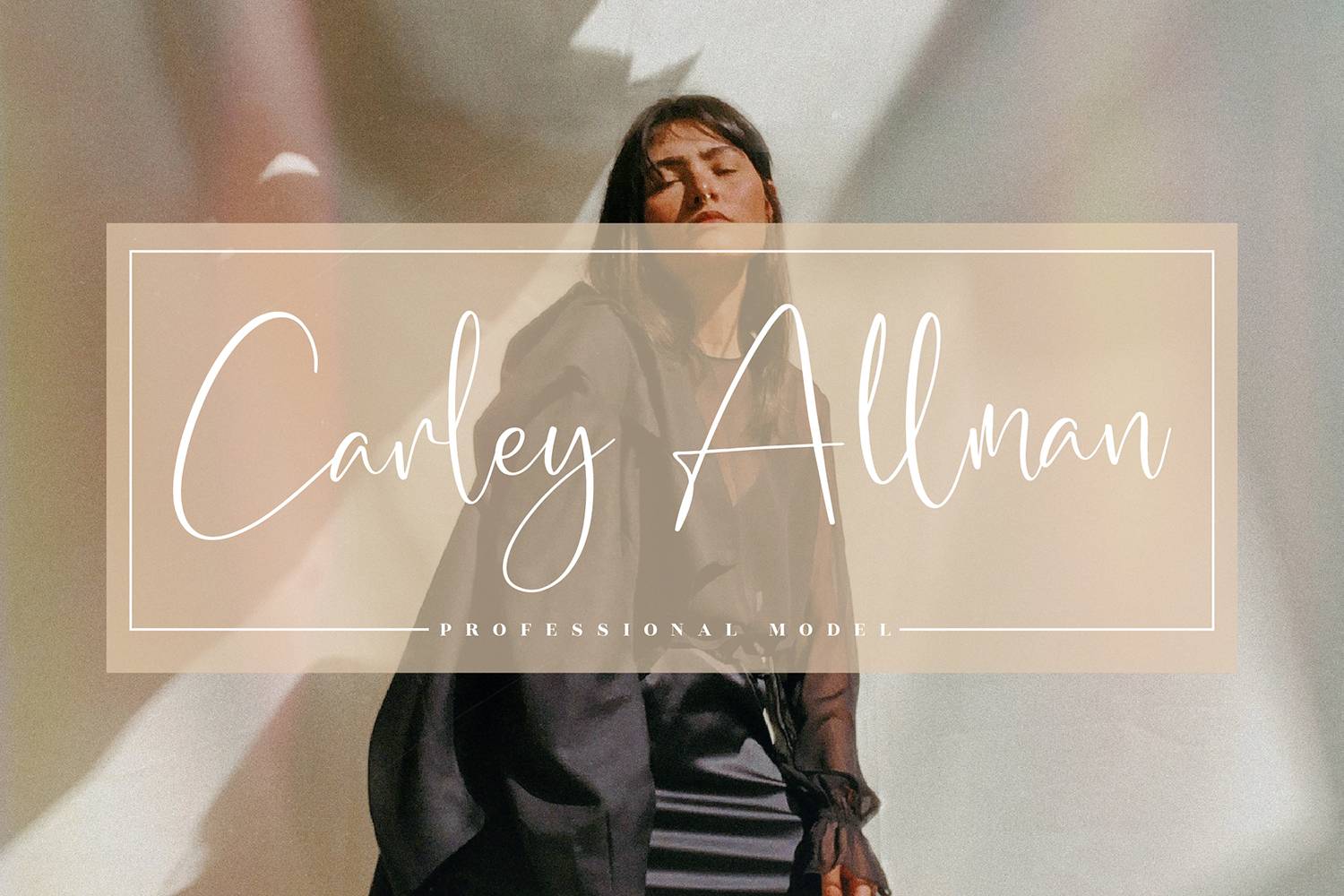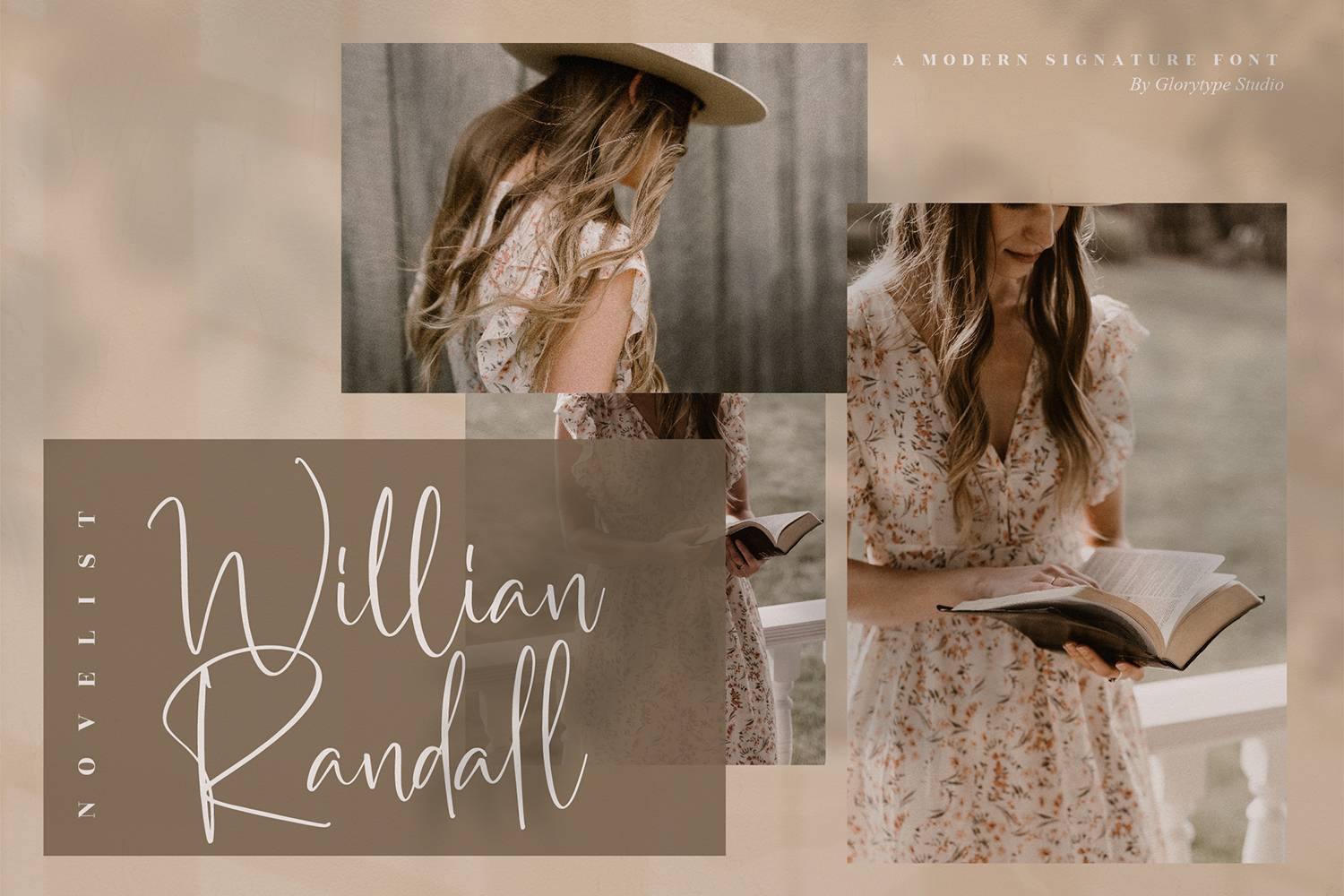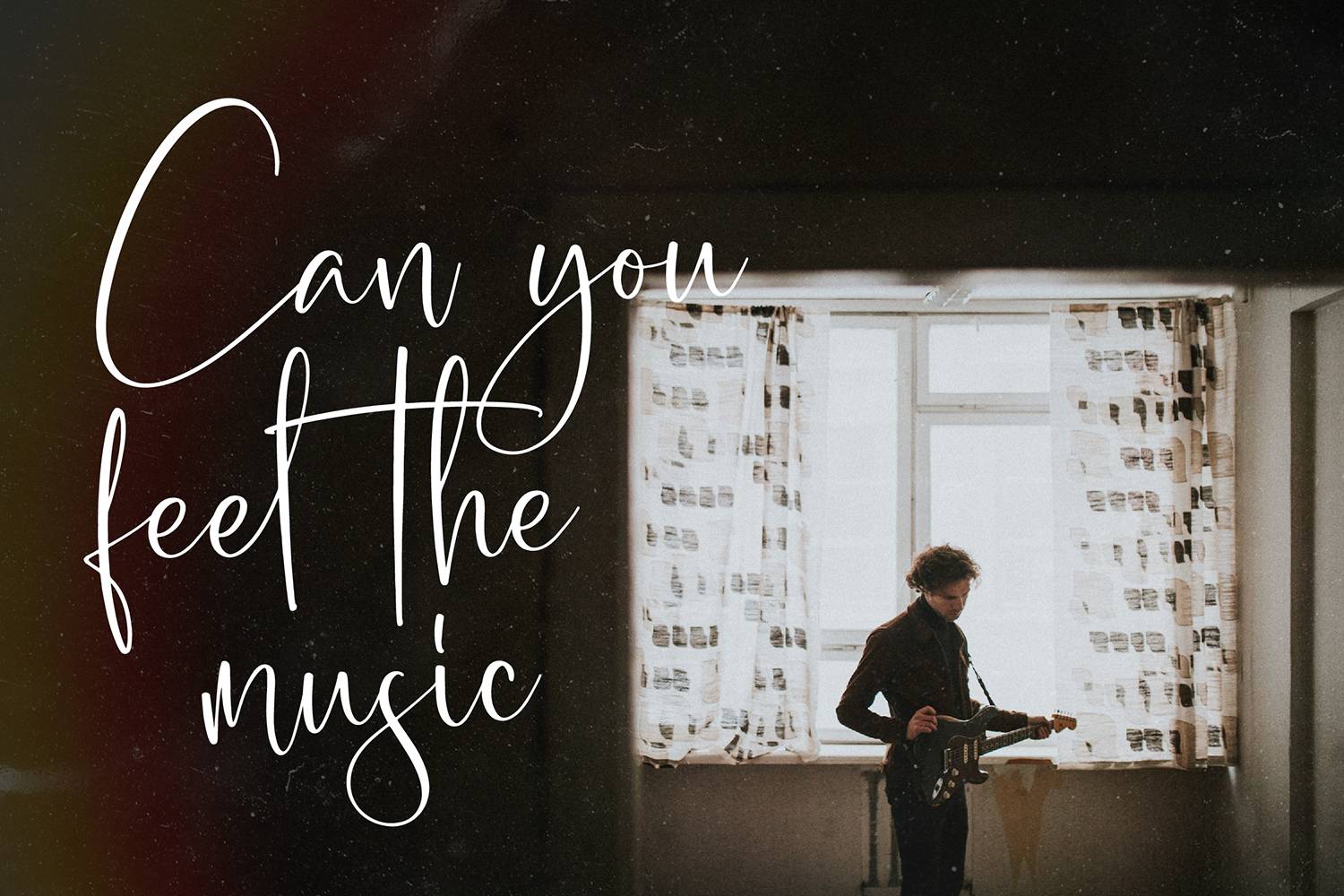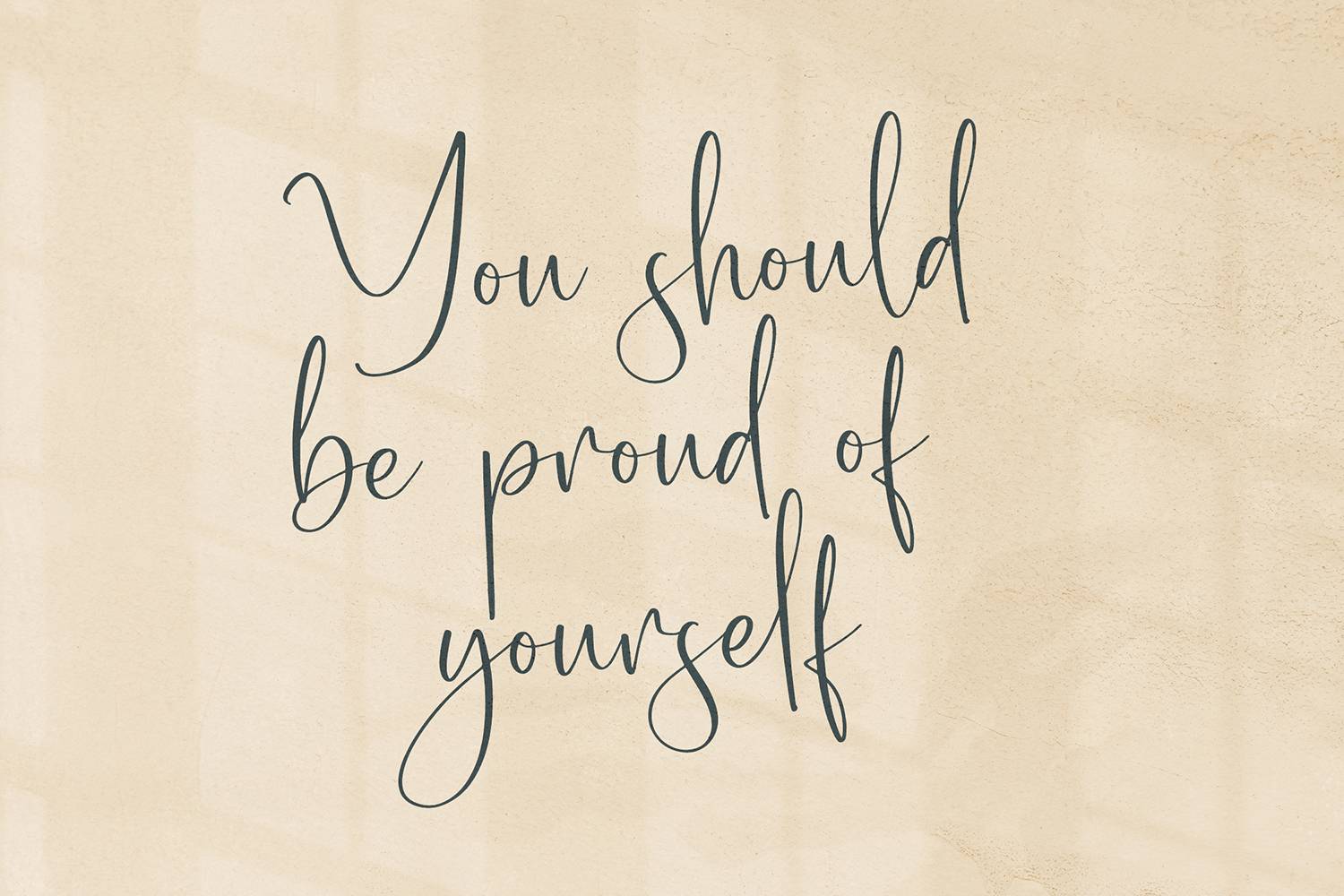
Georgia Western is a delicate and airy handwritten script font characterized by its tall, slender letterforms and elegant, flowing strokes. With its thin, whimsical lines and unique, artistic flair, it conveys a sense of casual sophistication perfect for creative projects, invitations, and branding that seeks a personal, stylish touch. This font works beautifully in designs that want to evoke charm and individuality while maintaining readability.
Georgia Western Font
About Georgia Western Font